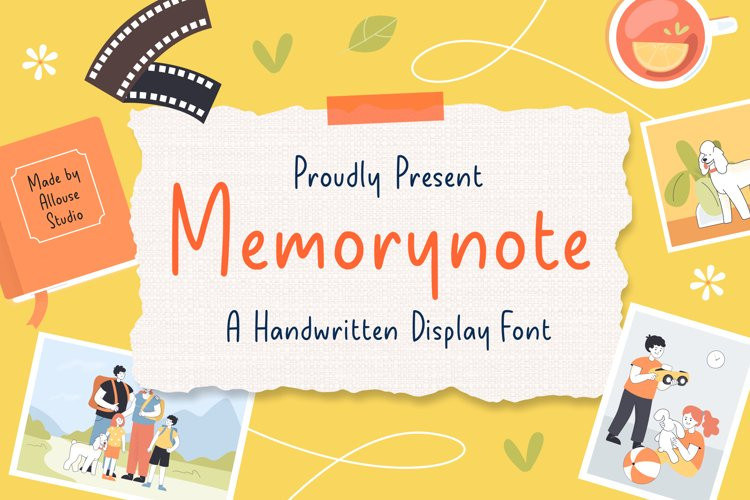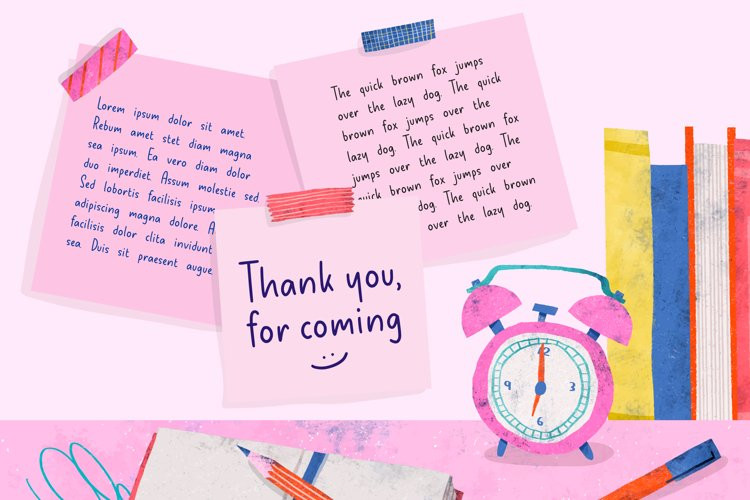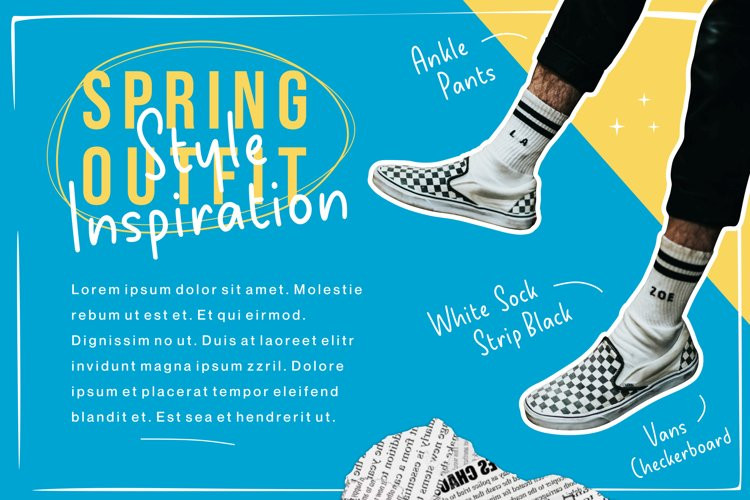
Memorynote Font
Memorynote FontMemorynote is A Handwritten Display Font
Memorynote is perfect for product packaging, branding project, megazine, social media, wedding, or just used to express words above the background.